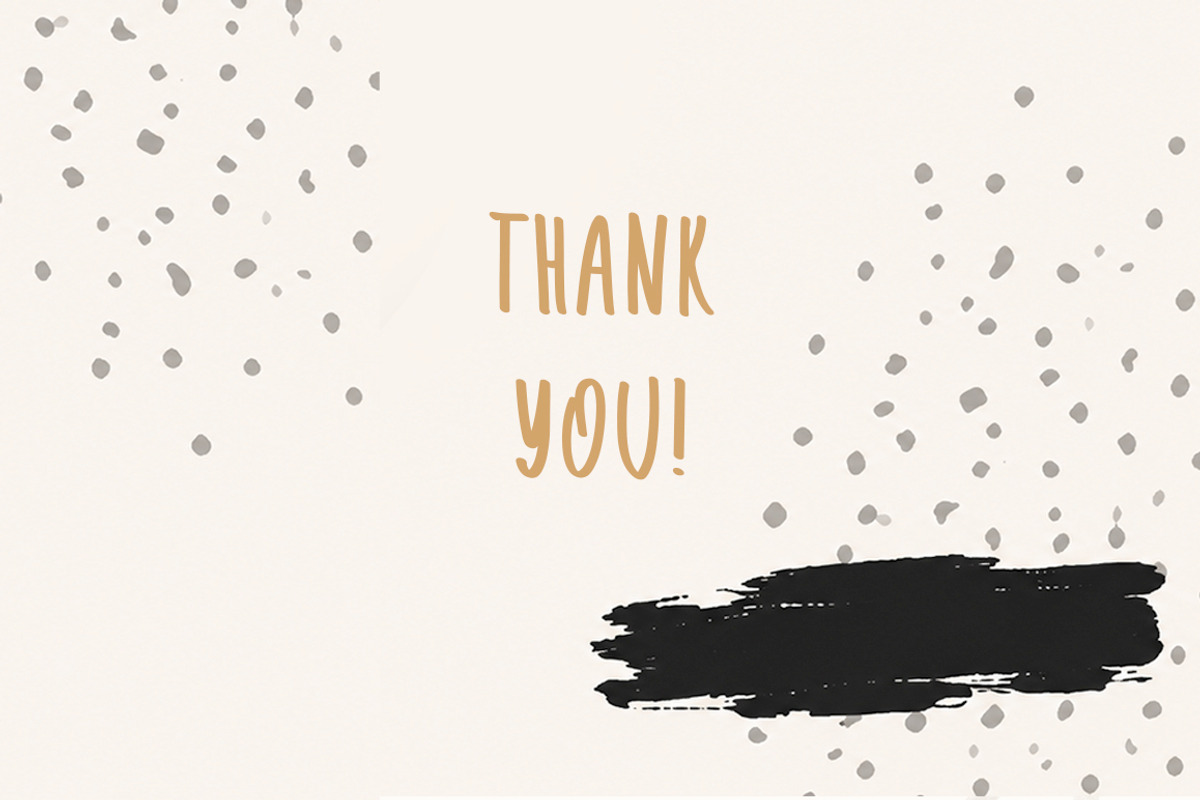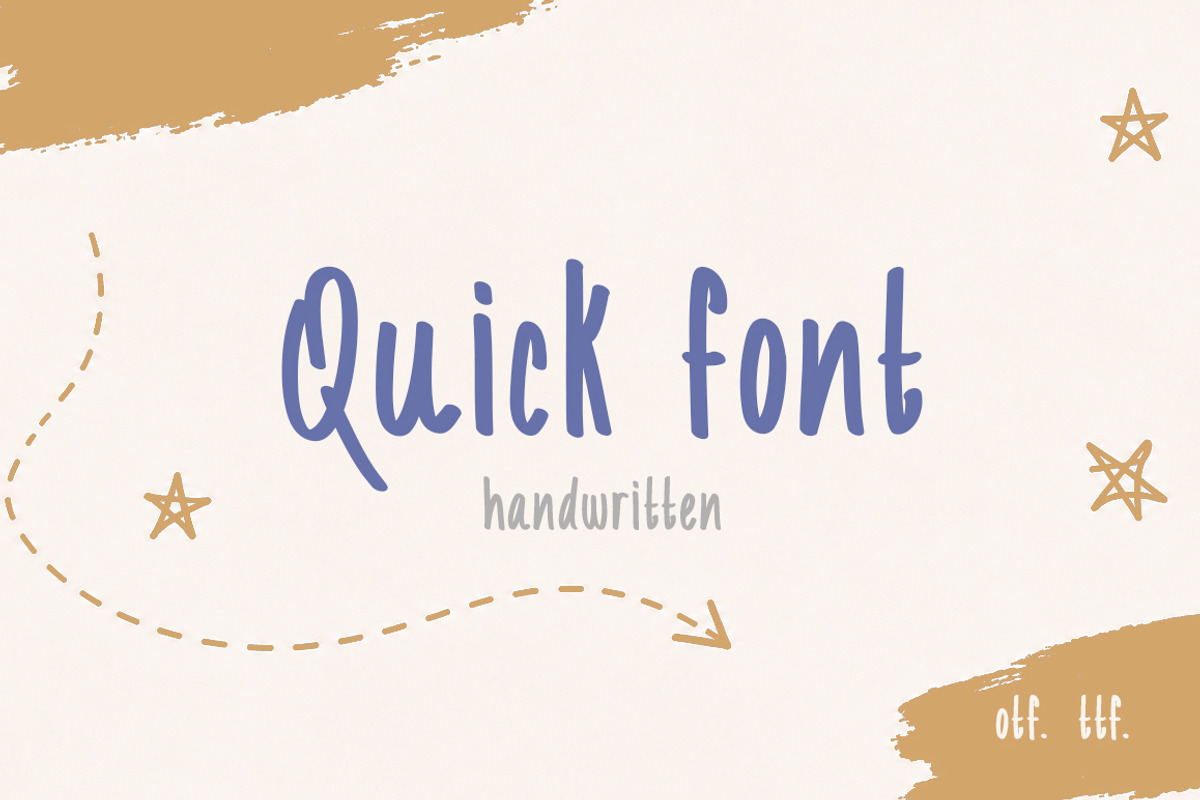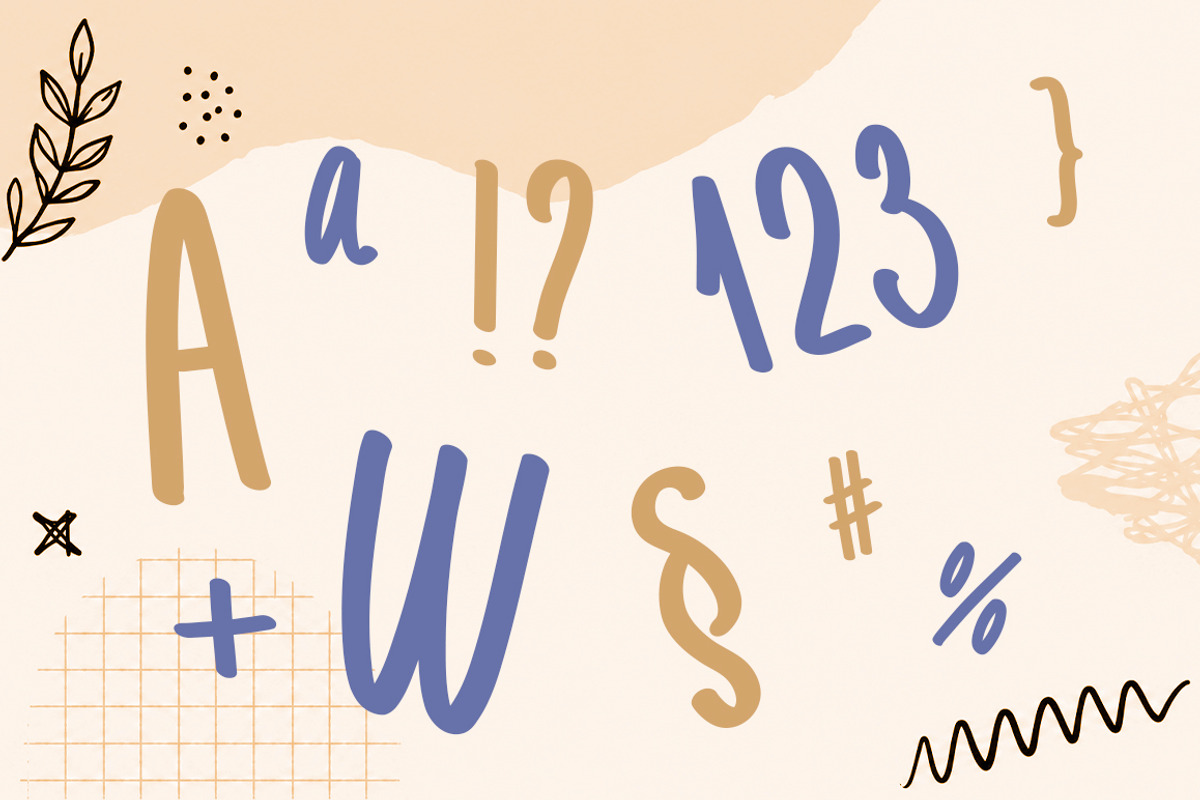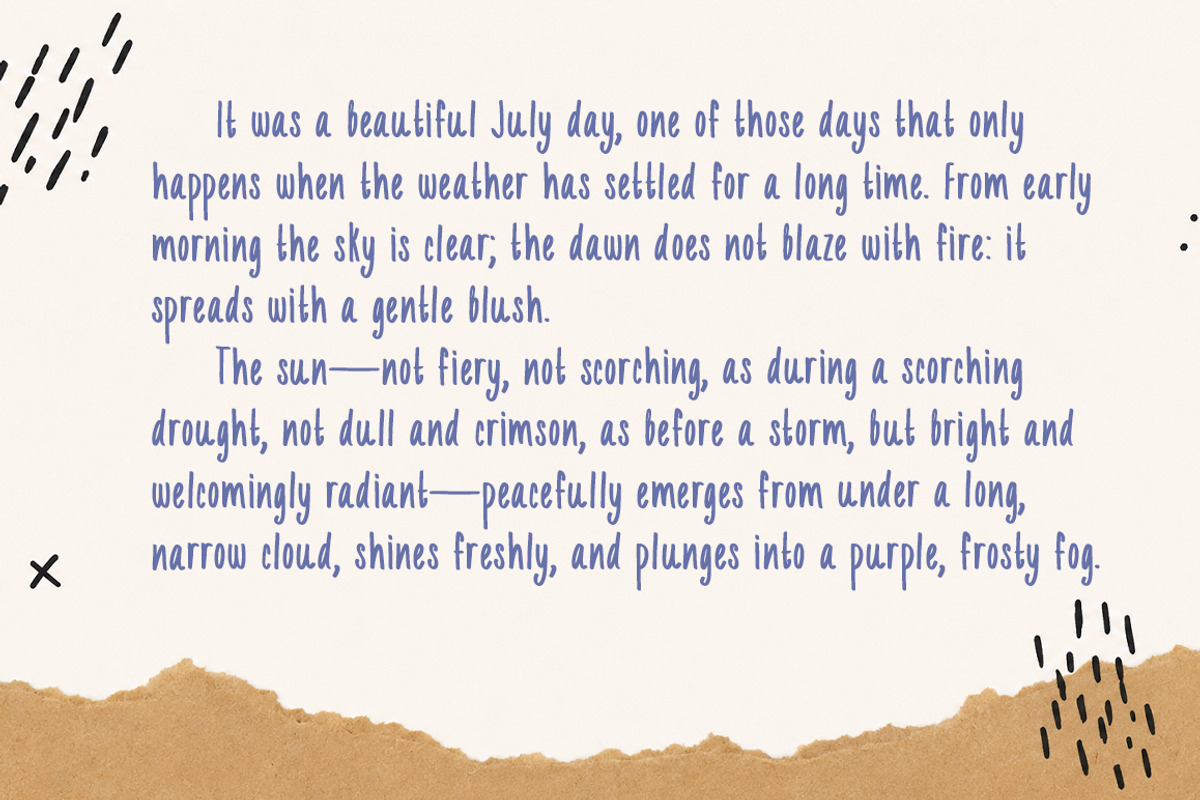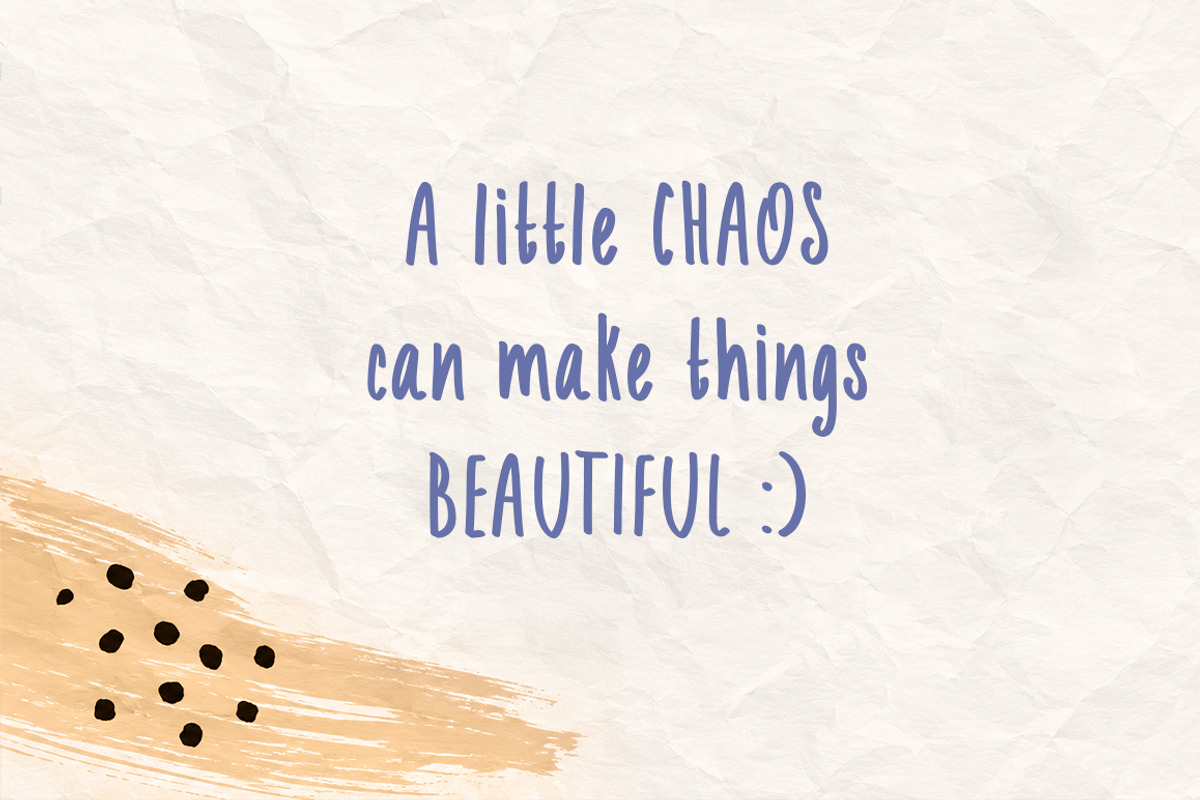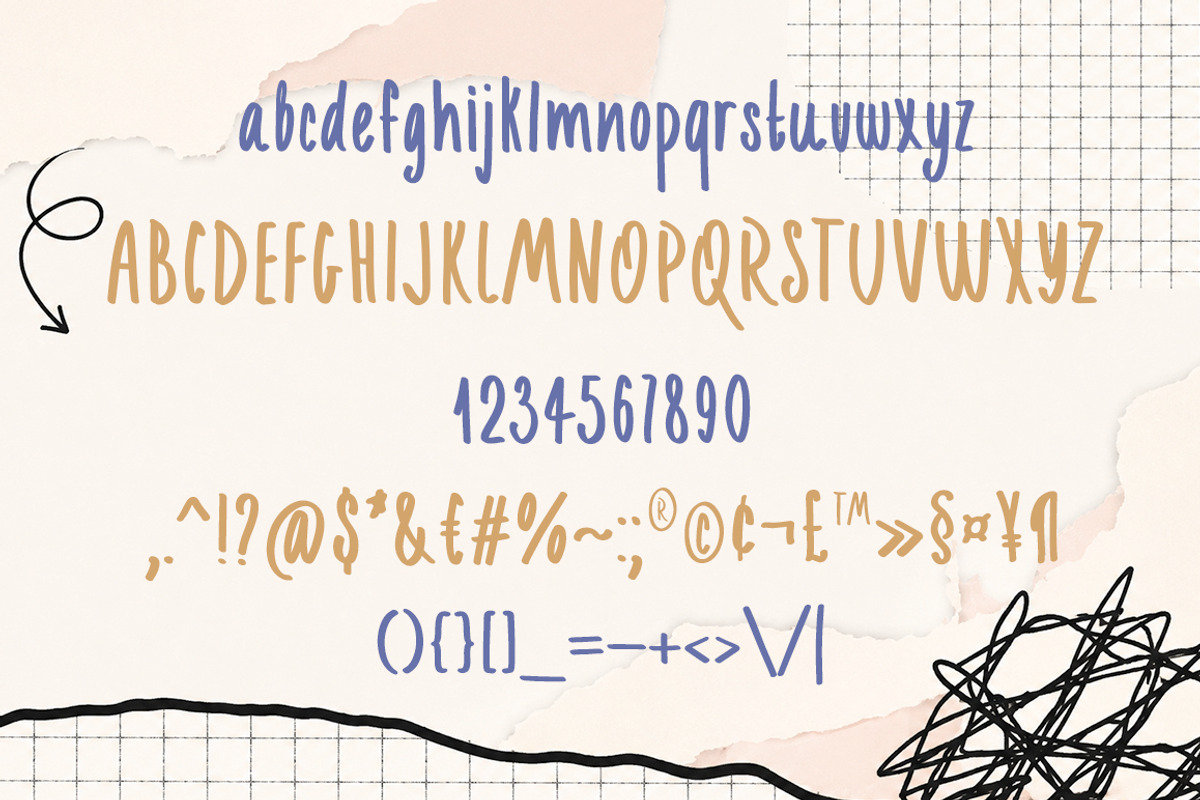
Creative rebellion "Quick" font
Meet a font that refuses to sit still. Hand-drawn, playful, imperfect, and full of personality — this typeface feels more like a sketchbook full of spontaneous ideas than a polished digital font. Every letter has its own rhythm, giving your designs a raw, human energy that instantly feels alive.
This font was made for creatives who love expressive typography, organic shapes, and beautifully imperfect details. It mixes quirky elegance with casual chaos, creating a style that feels modern, artistic, and effortlessly cool.
Perfect for projects that need warmth, individuality, and a touch of creative rebellion.
Branding & logos
Posters & album covers
Packaging design
Editorial layouts
Creative Market previews
Art prints & stickers
Handmade product branding
Children’s products
Café & lifestyle branding
Journals & scrapbooking
Quote designs
Fashion & beauty campaigns